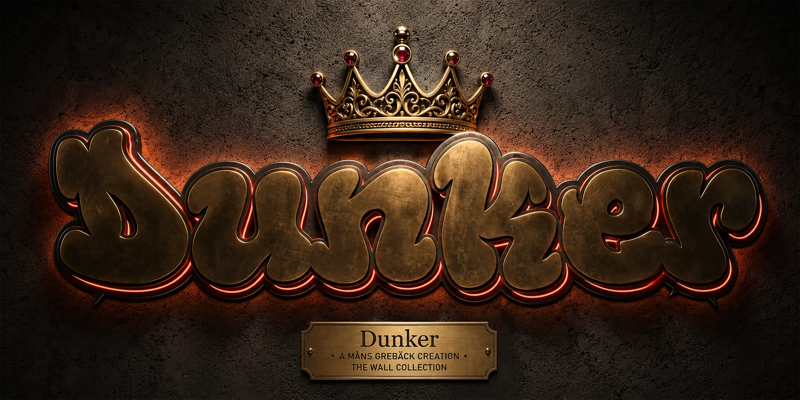
Dunker
NOTE: This font is for PERSONAL USE ONLY! To purchase a commercial license, visit: https://www.mansgreback.com/product/dunker Dunker is a fat-bubble display face with rounded counters and a heavy, even weight. Each letter is built from full pillowed forms that pad into one another, with little flecks of negative space where the strokes meet. There is a swing to the lowercase that comes straight out of the throw-up tradition, and a warmth in the caps. You can picture it sprayed five colors deep across a cinderblock wall behind a half-court, or stitched in chenille across the chest of a varsity hoodie. For questions, please visit https://mansgreback.com/faq